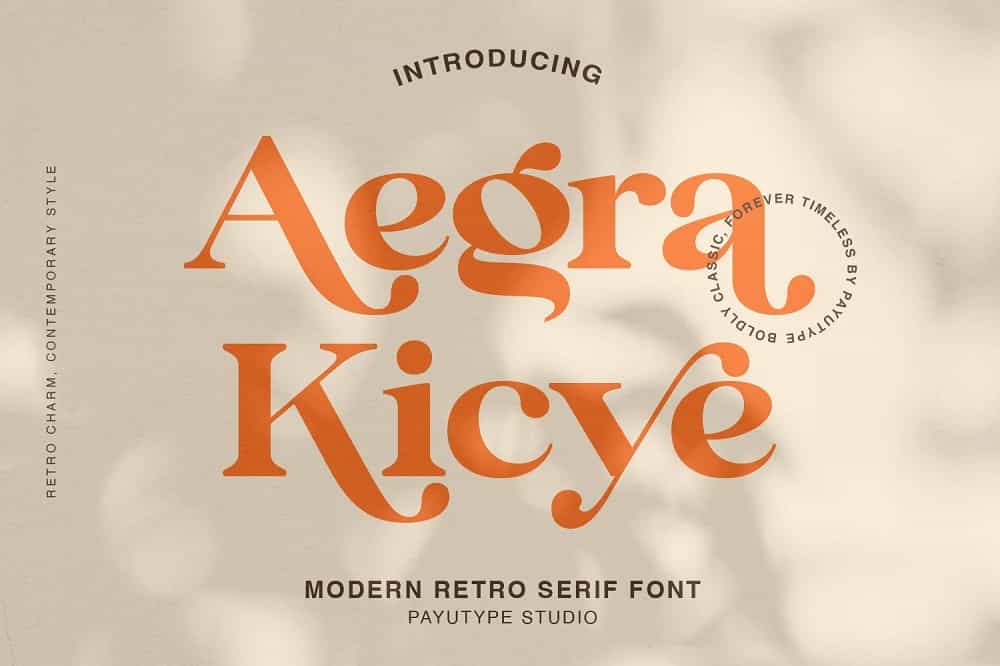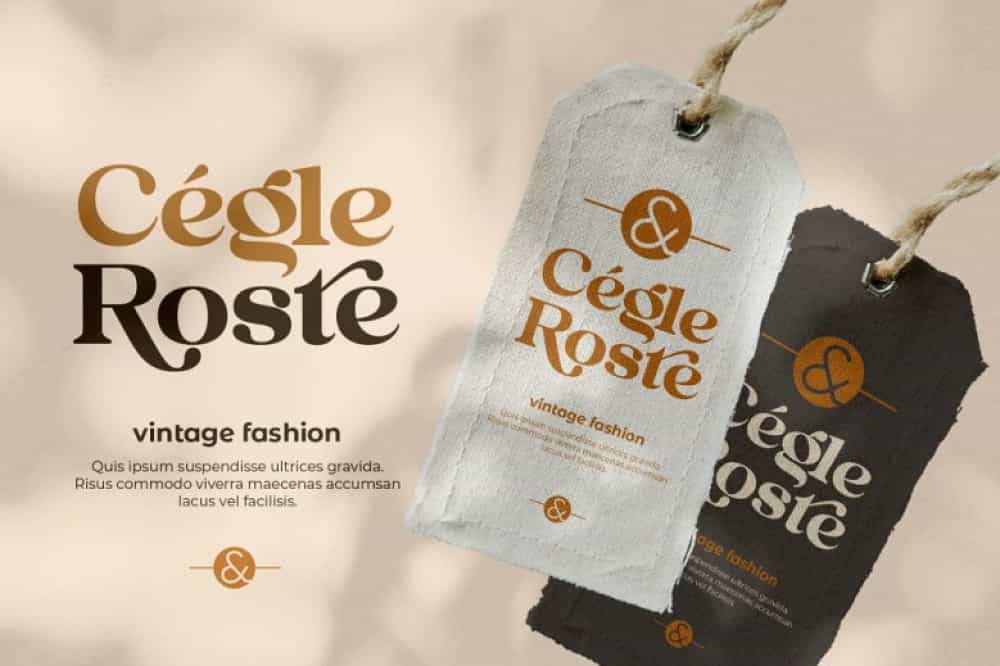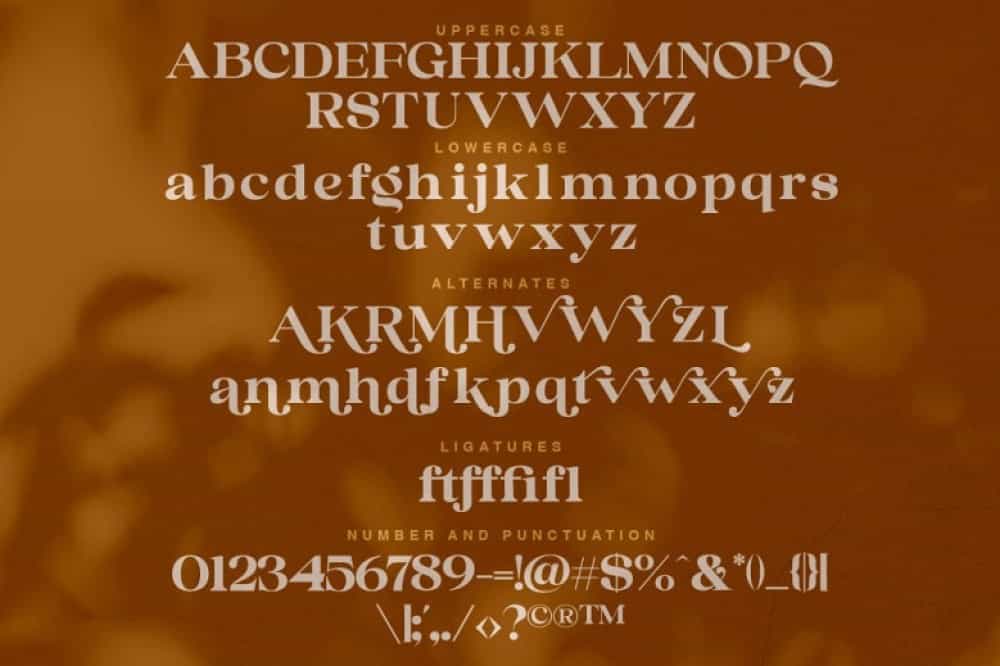
Aegra Kicye is a modern retro serif font that aims to bring the contemporary design with a hint of retro feeling. Aegra Kicye has a sleek design that adds beauty that will complement any word you write. Great for logo design, wedding invitations, novels, or even website design,